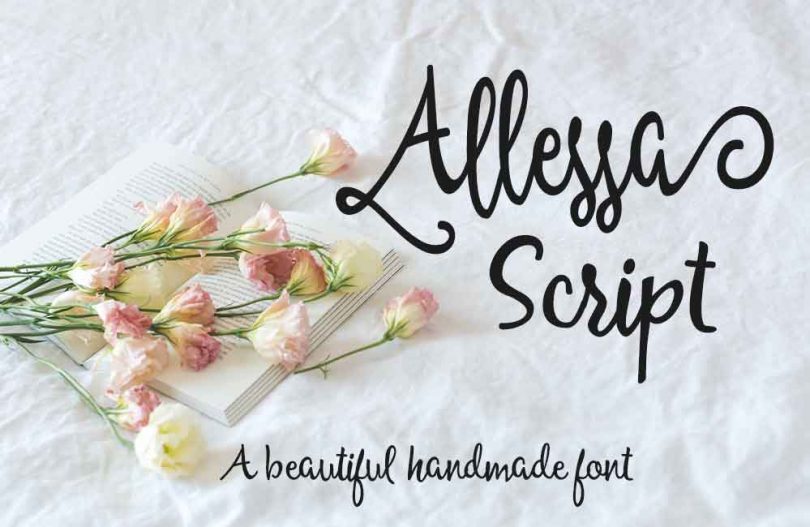
Allessa is a beautiful handmade script font that gives the natural look. 312 glyphs and alternate character contain with opentype features. Stylistic alternates, Ligature, Swash and more. You can access all those alternate characters by using OpenType savvy programs such as Adobe Illustrator and Adobe InDesign. Great for Apparel Brand, any greeting cards, book cover, Painting design style, or any design that needs natural and personal touch. Mix and match the alternate characters to add an attractive message to your design. The files include TTF, OTF, EOT, WOFF, & SVG.